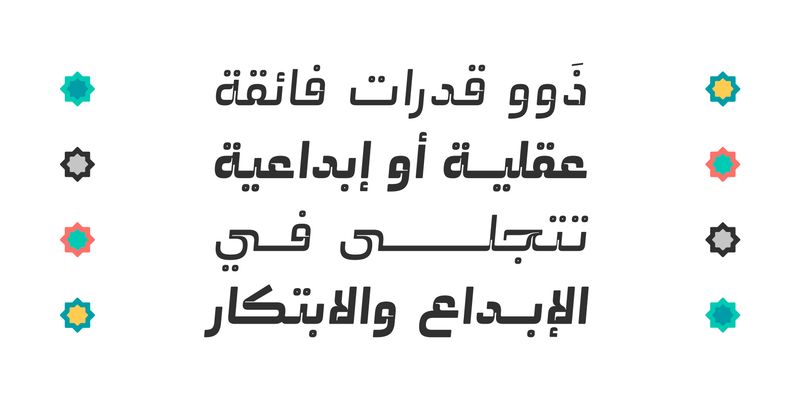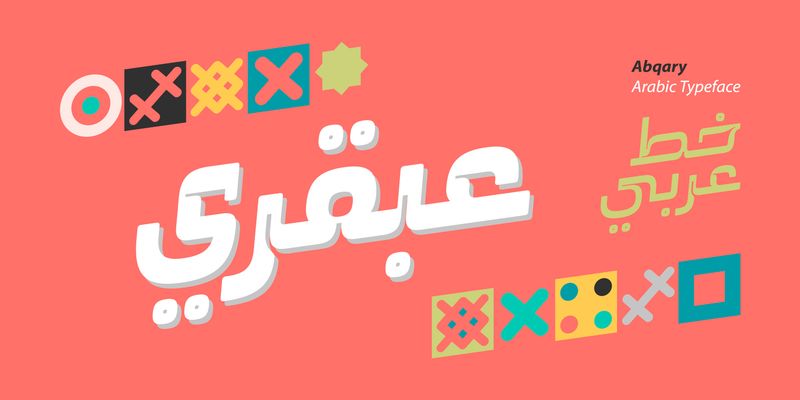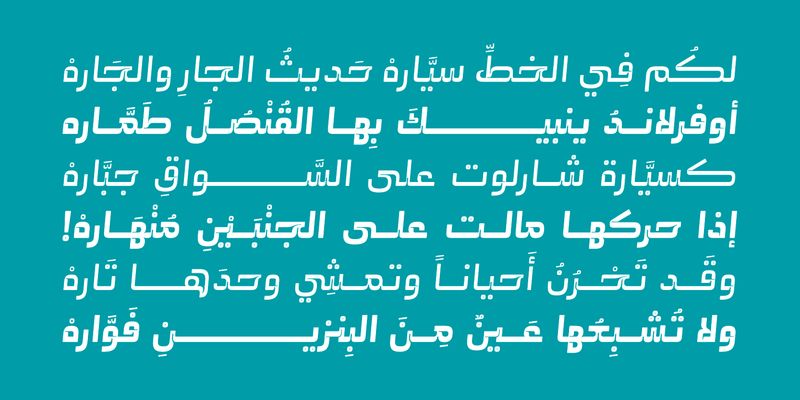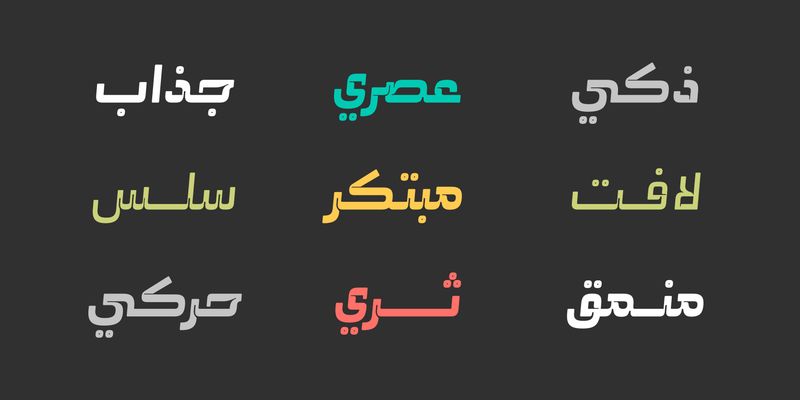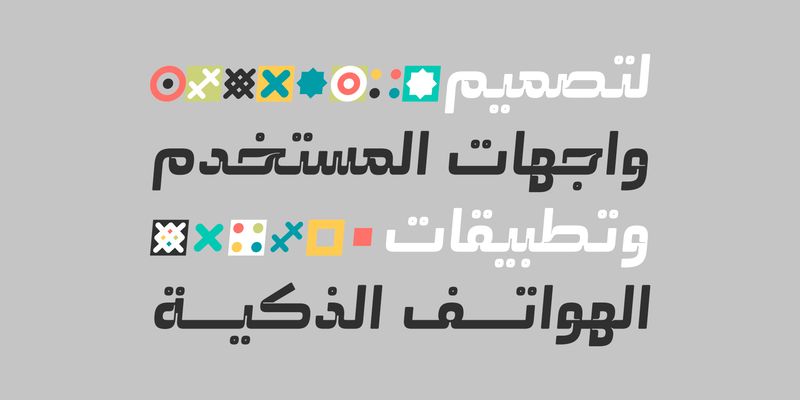
Abqary (the Arabic for ‘Genius’) is an Arabic display font that features dynamic letterform design infused with a modern artistic flair. The font’s smooth edges contribute to a sleek appearance while ensuring high readability. Abqary suits a wide array of creative projects such as print media, branding, UI/UX typography, as well as web and mobile applications. The font family consists of Regular and Bold styles and is compatible with both Windows and macOS.
Mostafa El Abasiry is an independent Arabic type designer whose work has helped define a new era of expressive Arabic typography. Since 2009, he has built a distinctive and influential catalogue of Arabic typefaces known for their bold geometry, modern aesthetics, and emotionally resonant visual character. His designs are widely recognized for merging the structural clarity of geometric construction with the creative freedom of contemporary display typography.
Mostafa’s approach is rooted in a balance of mathematical precision and artistic intuition. Many of his typefaces begin as geometric studies - circles, arcs, grids, and modular systems, before evolving into expressive display families with strong visual identity. Other designs explore texture, layering, and experimental forms, expanding the expressive potential of Arabic letterforms in digital environments.
In 2017, Mostafa introduced Tajreed, the first Arabic OpenType‑SVG color font ever created. This pioneering work brought textured, multi‑layered Arabic typography into mainstream digital use and opened a new category of expressive Arabic tools for designers and everyday creators. Tajreed later grew into a broader ecosystem of textured and experimental families that influenced how Arabic typography appears in mobile apps, creative platforms, and user‑generated content.
Mostafa’s typefaces have been used by a wide range of clients, from global brands such as Apple TV+ and Turkish Airlines to millions of everyday creators. Despite this reach, his design process remains deeply personal: every typeface begins with hand‑drawn sketches, geometric construction, and a search for a unique visual voice rooted in Arab visual culture.
Today, Mostafa continues to expand his catalogue with new display families, textured experiments, and modern interpretations of Arabic typographic heritage. His work aims to give designers and creators expressive tools that did not exist before - tools that make Arabic typography feel bold, modern, and alive.